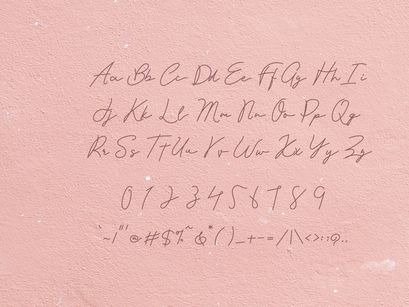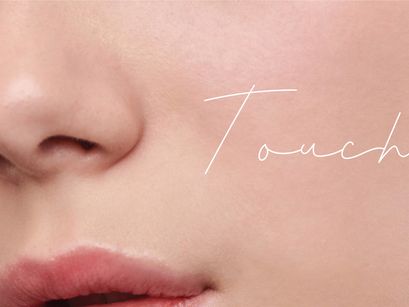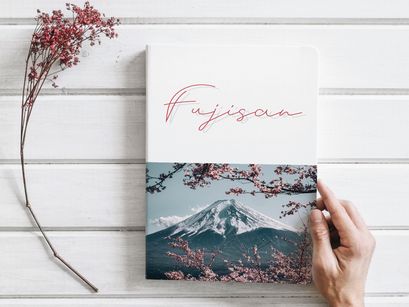
Fabiola is a delicate handwritten font with signature style look.
Perfectly fits for logos, brand that use fonts with signature font type,
but can also be use for various project such as card, wedding and combined with other font.